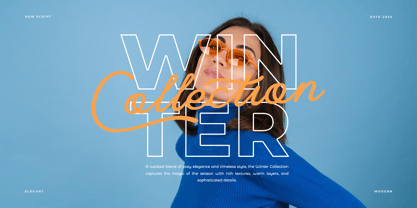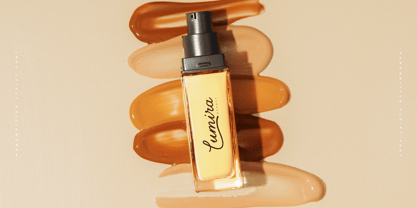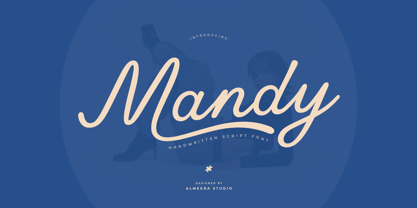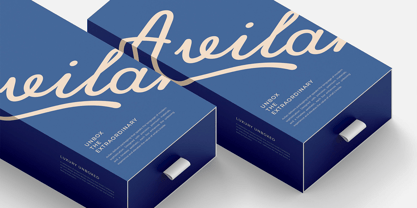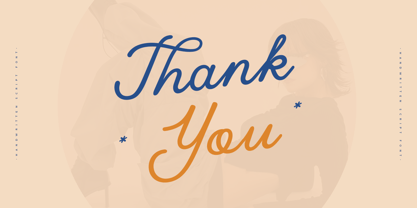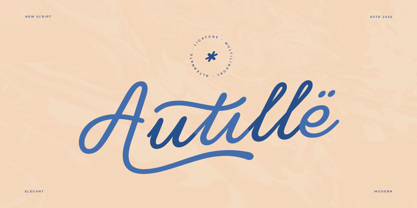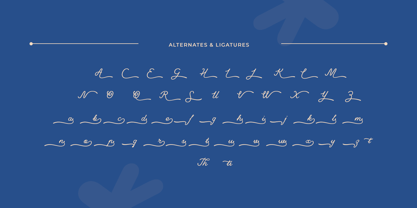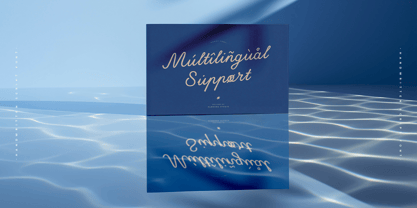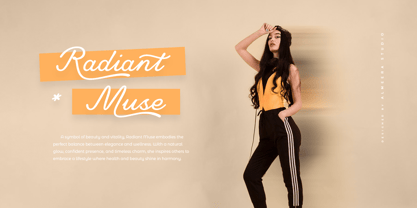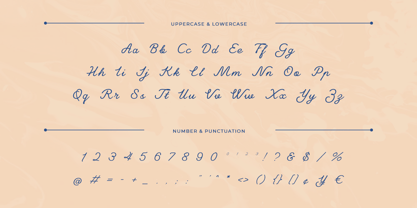
Mandy
by Almeera Studio
The Mandy Font Family was designed by Rinto Dwi Nugroho and published by Almeera Studio. Mandy contains 1 styles. More about this family
Fresh, friendly, and full of personality, Mandy is a handwritten script font that’s as approachable as stylish. Designed with smooth curves and a modern, casual flow, it’s perfect for personal branding, social media graphics, lifestyle blogs, posters, and everyday creative projects.
Mandy strikes the balance between professionalism and warmth—making it an ideal choice for designers who want authenticity without sacrificing readability. Whether you’re designing a playful quote or a chic logo, Mandy brings a touch of effortless charm to your work.
FEATURES:
- Uppercase
- Lowercase
- Multilingual support
- Ligatures
- Playful alternates and swashy details
- Punctuation
- Numerial